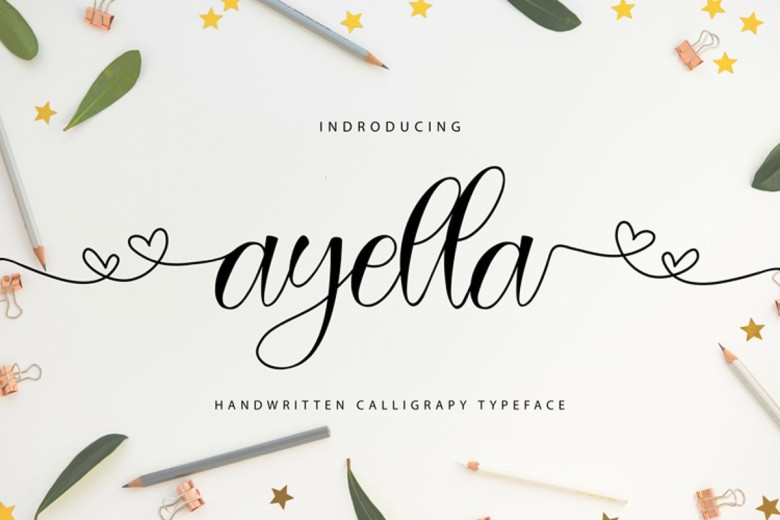
Ayella Handwritten Calligraphy Typeface
Ayella Script Font is a thin handwritten calligraphy typeface, made in a modern style and also a type of font that is trending among designers today, by presenting a luxurious appearance that will make your design attractive and look very suitable.
In addition, Ayella’s font is very suitable also for ad text, book covers, logos, mock ups, mate-marks, magazines, food design, products, headers, coffee logos, brands, films, columns, videos, and imagination.